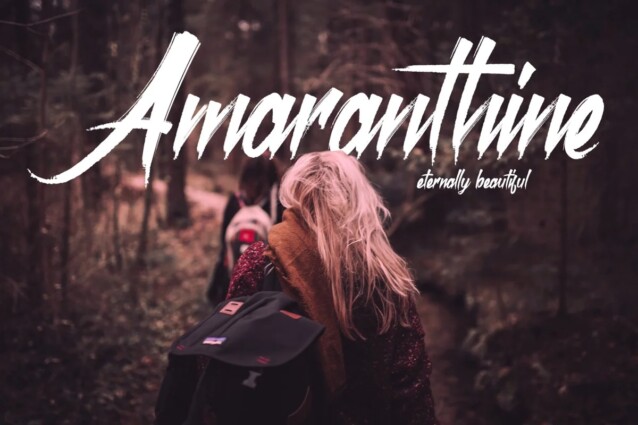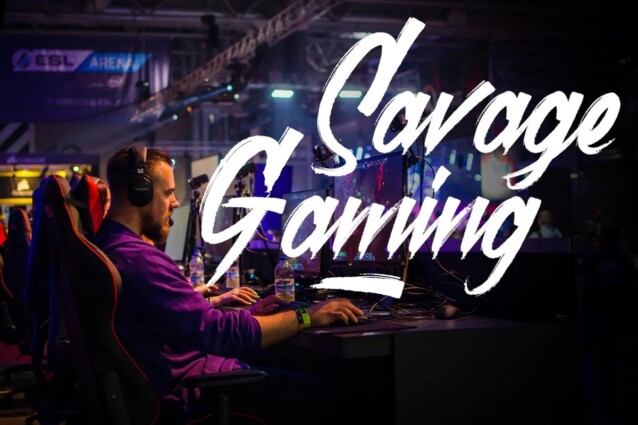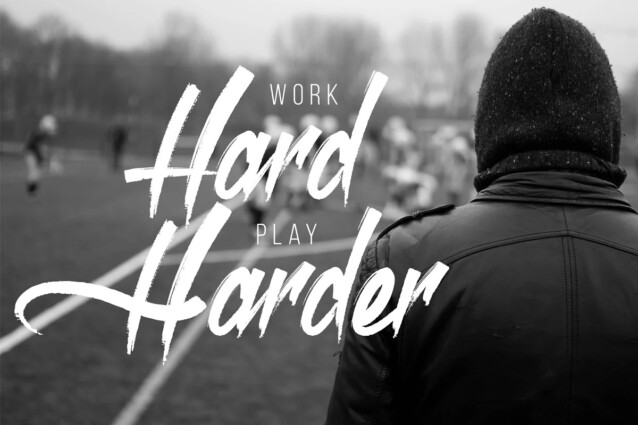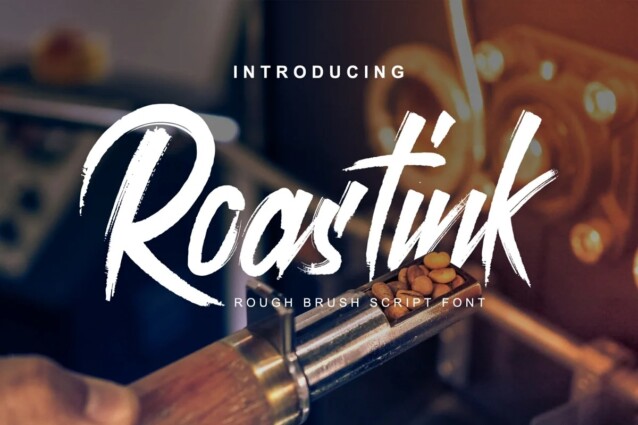
Roastink Font
Roastink Font is a textured handbrush font manufactured by SemutHitam Creative. Comes with many opentype feature, upper and lower case standard character, punctuation and numerals, multilingual characters, ligatures, stylistic alternates, and many more glyph.